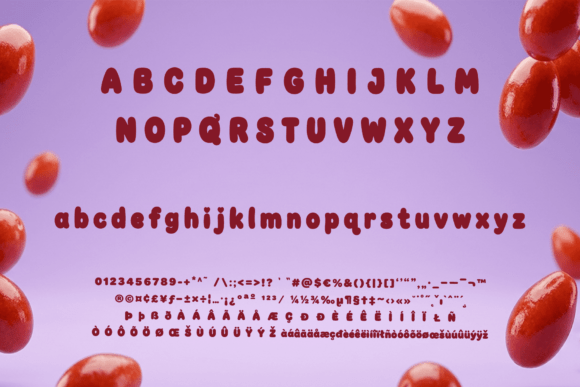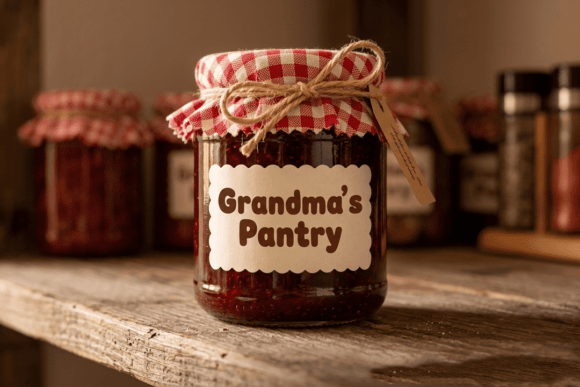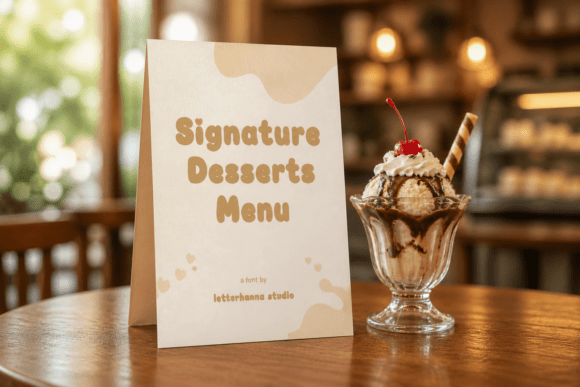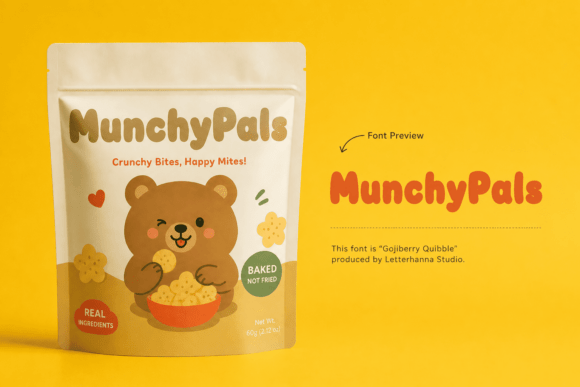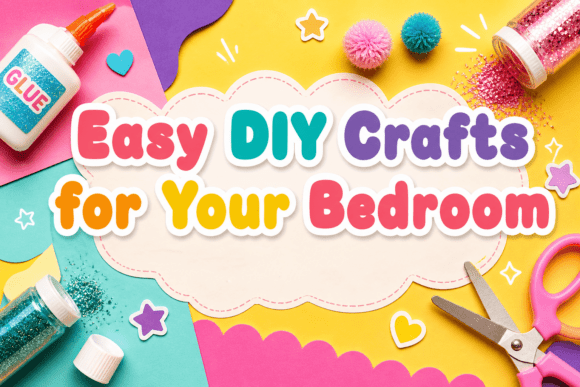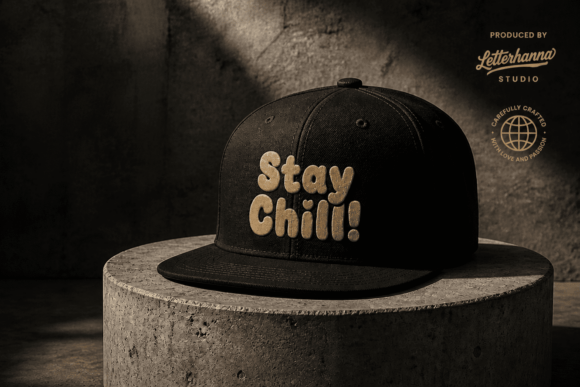
Designing with Joy: The Gojiberry Quibble Font
Have you ever stared at a blank page, trying to come up with the perfect font to capture the essence of a children’s book or a playful brand identity? The blank page can be daunting, but what if you could tap into a font that screams fun and whimsy? Gojiberry Quibble Font is here to save the day, bringing instant joy to everything it touches.
This chunky, rounded display font is built for the bold, the bright, and the beautifully chaotic world of kids’ design. With its thick, bouncy letterforms and deliberately imperfect charm, Gojiberry Quibble Font is the perfect companion for designers who want to create something truly special. Whether you’re working on a birthday party invitation, a children’s book cover, or a classroom poster, this font has got you covered.
Gojiberry Quibble Font Key Features
- Font Family: Gojiberry Quibble Font is a unique, hand-drawn font designed to add a touch of whimsy to digital and print materials.
- Unique Characteristics: Gojiberry Quibble Font features a distinctive, hand-drawn style with irregular letterforms and subtle imperfections, giving it a charming, human touch.
Gojiberry Quibble Font Review
I recently had the chance to work with the Gojiberry Quibble Font, and I must say it’s a unique and interesting addition to any design project. ✨ One of the things I appreciate about this font is its playful, handwritten feel, which is perfect for creative or whimsical designs. The font also comes with a wide range of styles and weights, making it highly customizable.
However, I do have a few reservations about the Gojiberry Quibble Font. ⚠️ Firstly, the font can be a bit overwhelming to read at larger font sizes, and some characters may appear slightly uneven or wobbly. Additionally, the font’s unique style can be a bit too quirky for more formal or professional projects.
- Unique, handwritten style
- Wide range of styles and weights
- Perfect for creative or whimsical designs
- May be overwhelming to read at larger font sizes
- Some characters may appear uneven or wobbly
Overall, I would say that the Gojiberry Quibble Font is a solid choice for designers who want to add a touch of personality to their projects. While it may have some limitations, its unique style and versatility make it a great addition to any design toolkit.
For best results, use the Gojiberry Quibble Font in designs where a playful, whimsical feel is desired.
1. Children’s book illustrations.
2. Food and beverage branding.
3. Event invitations and party decorations.
Remember to pair the Gojiberry Quibble Font with complementary colors and designs to create a visually appealing effect.